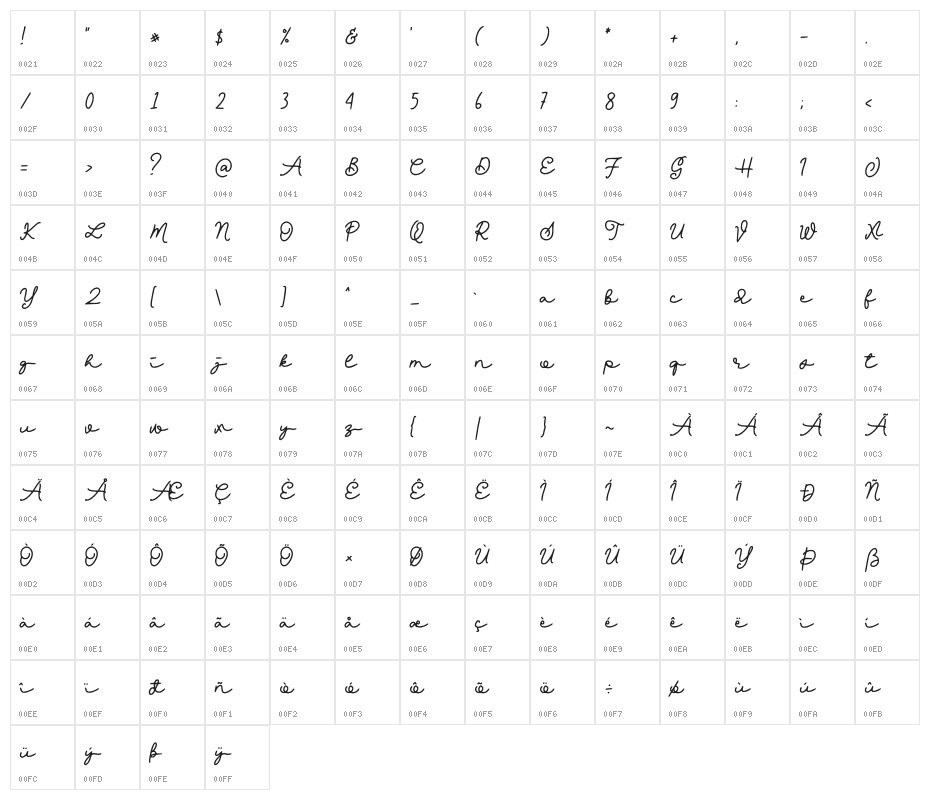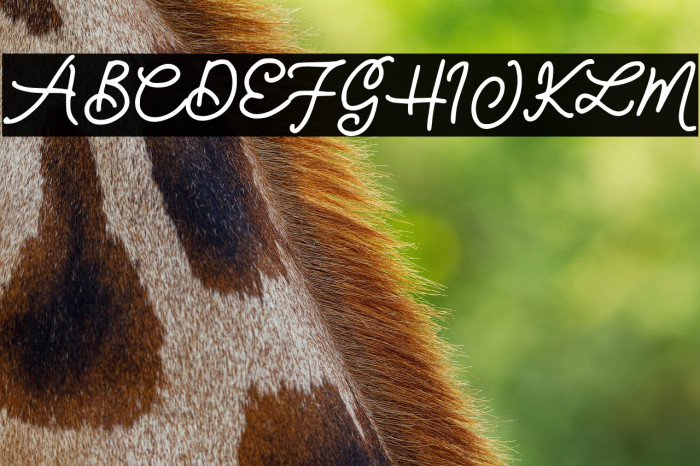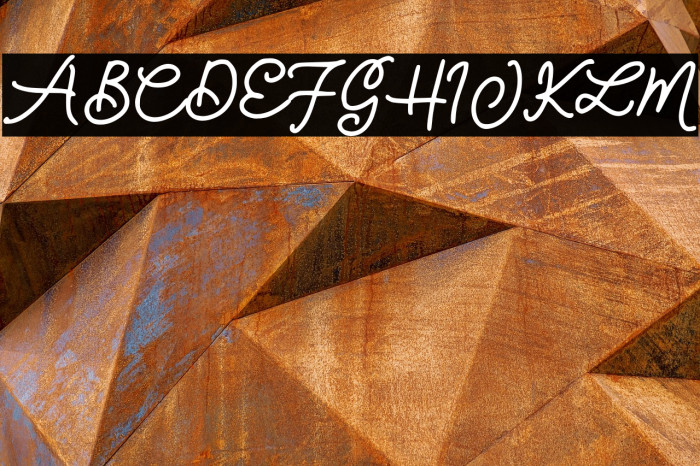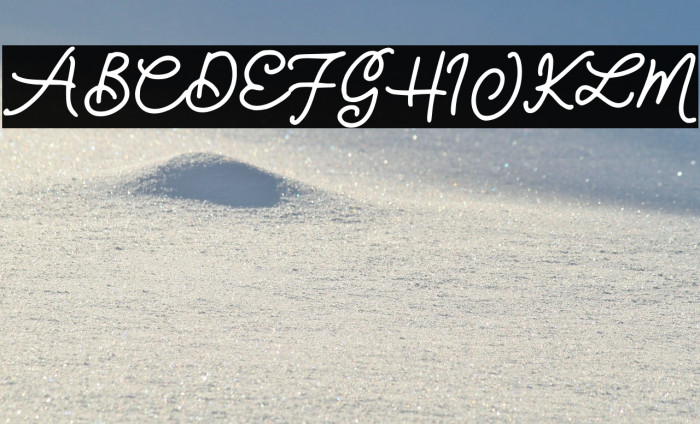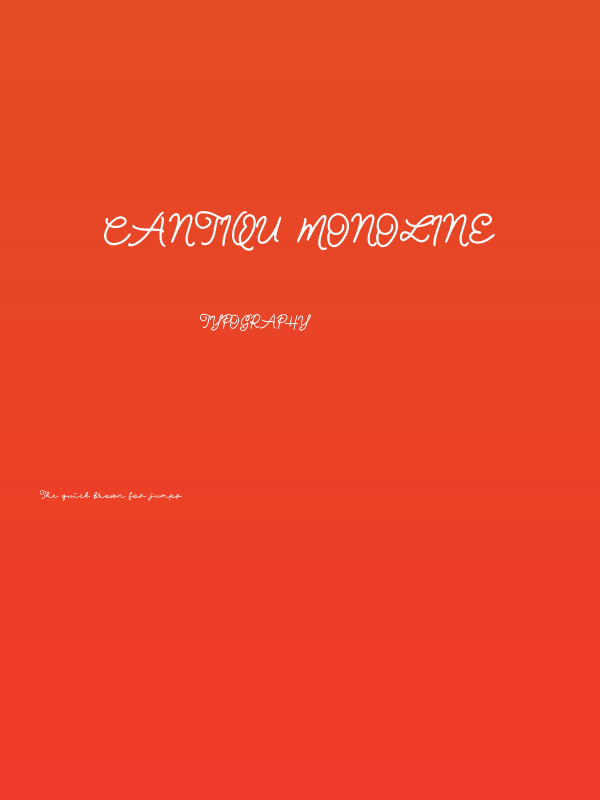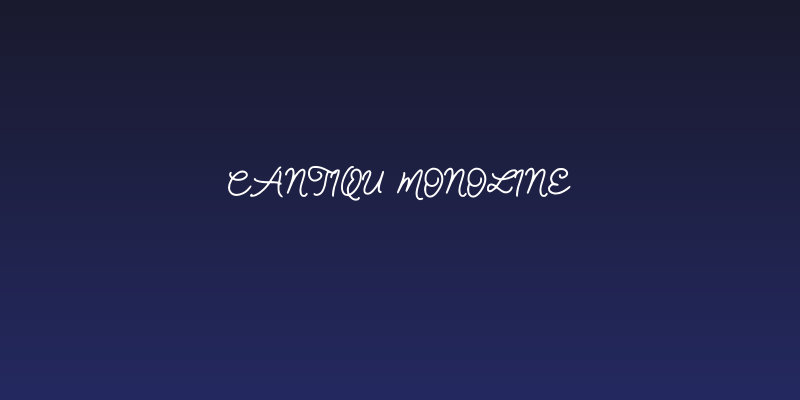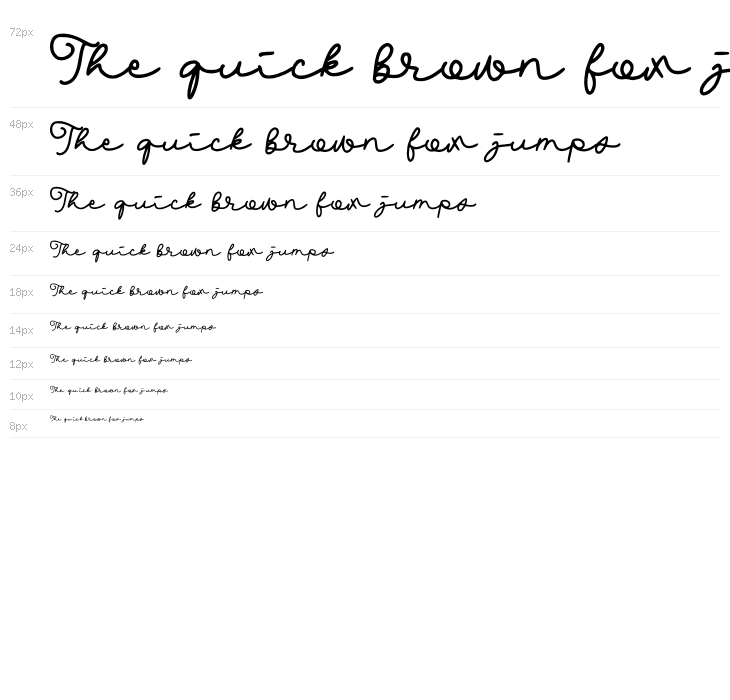
Cantiqu Monoline Font
Cantiqu Monoline Description
This font features a monoline script style with a smooth and flowing appearance. Each character is crafted with consistent line thickness, giving it a cohesive and elegant look. The uppercase letters exhibit a graceful and slightly cursive form, while the lowercase letters maintain a charming and approachable style. The numerals and special characters are designed to complement the overall aesthetic, ensuring readability and style. The font's design is versatile, making it suitable for a variety of creative projects.
| Proposed Projects | Ideal for wedding invitations, greeting cards, branding, and elegant logo designs. |